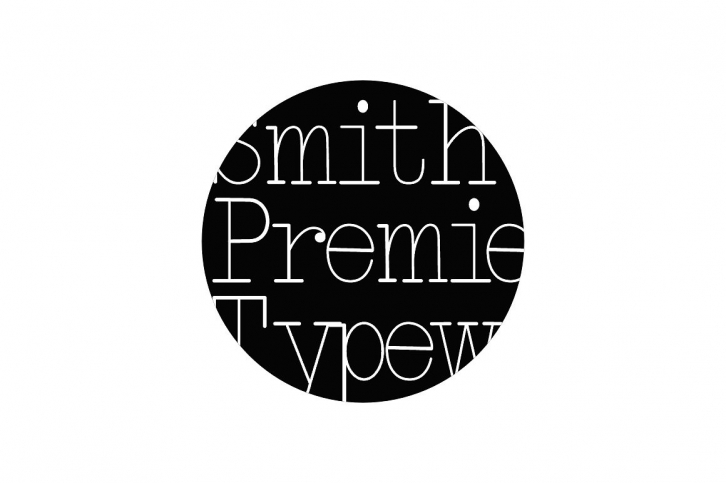
Smith-Premier Typewriter is a trendy and unique font with an authentic style. It was designed by Intellecta Design and it's a great choice for creative people who need such a font. It was released on September 19, 2017 and the file size is 20.9 MB. Smith-Premier Typewriter will add an organic vibe to any design idea!